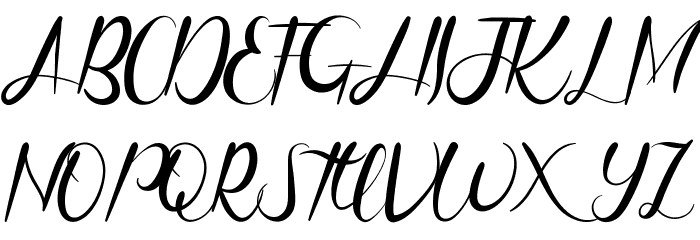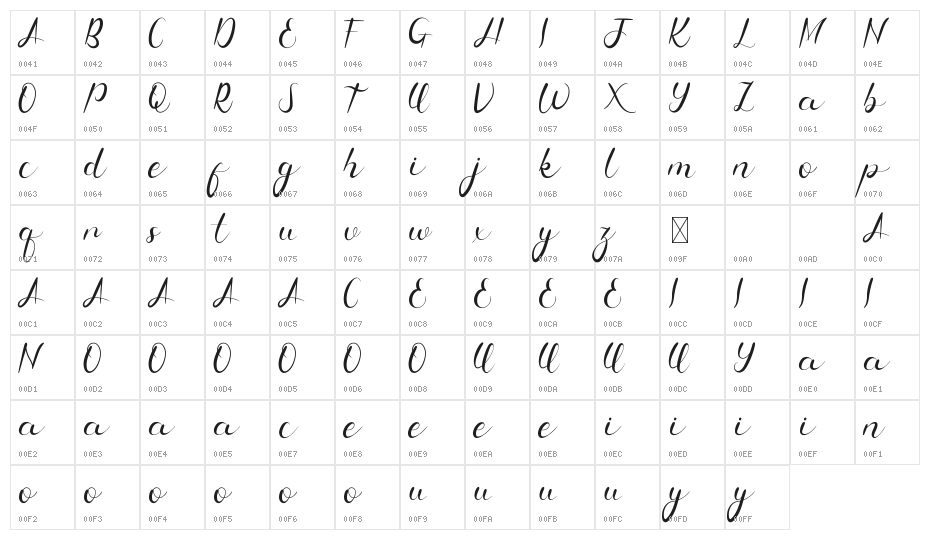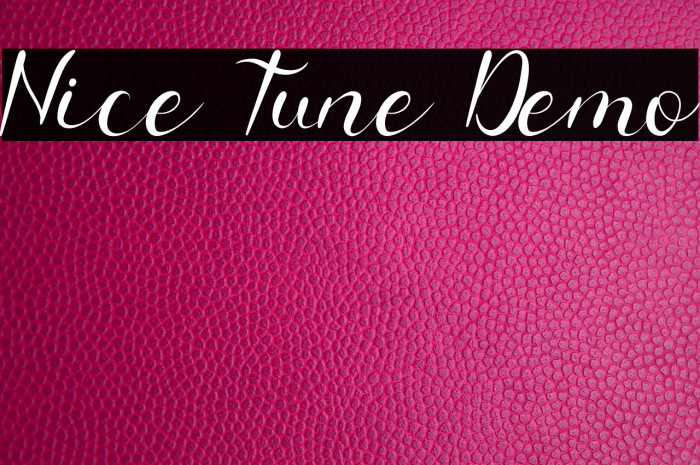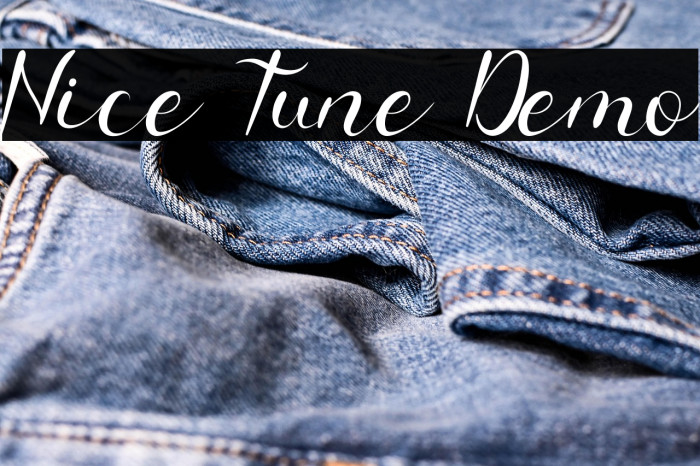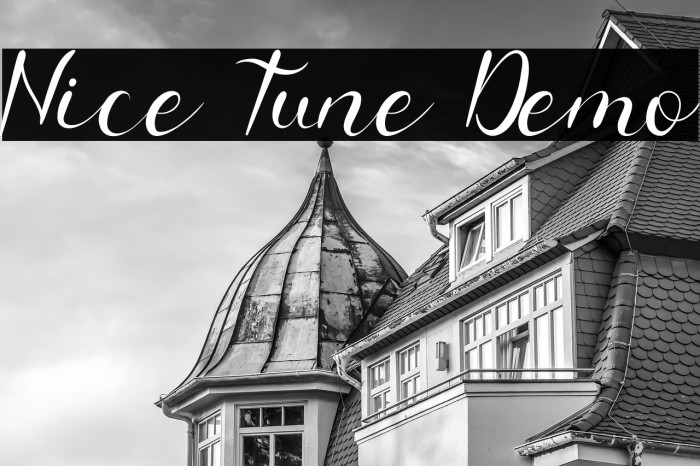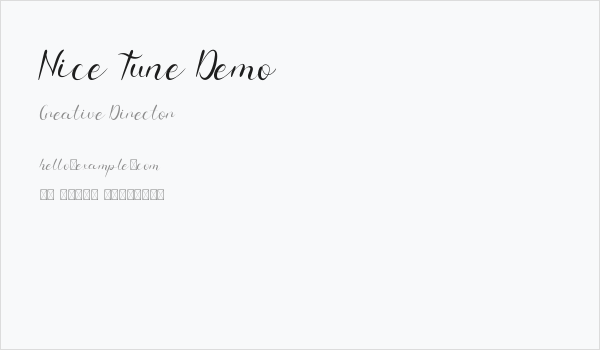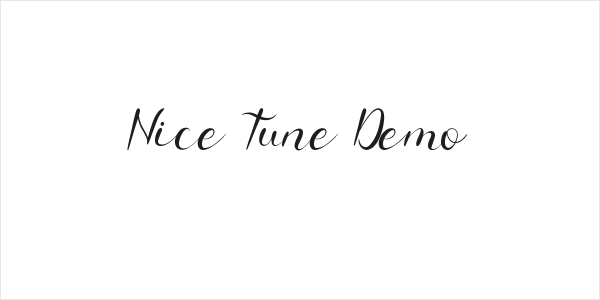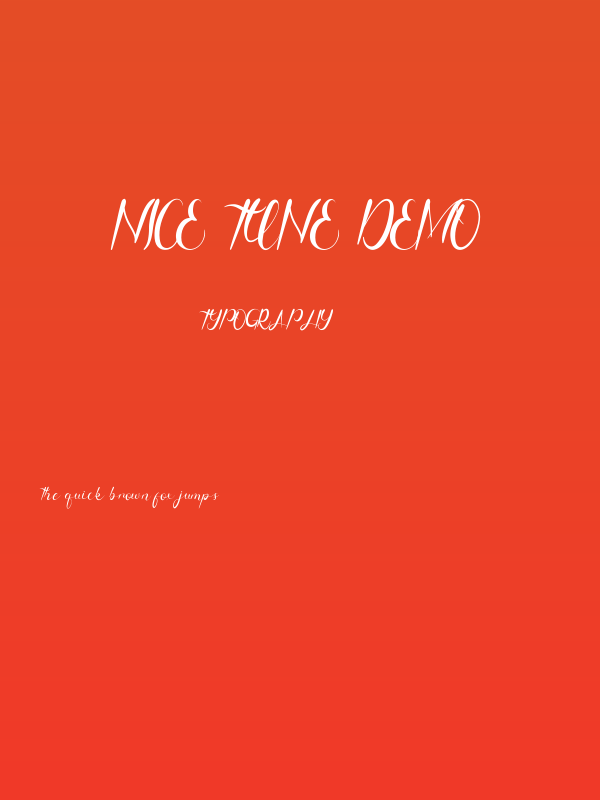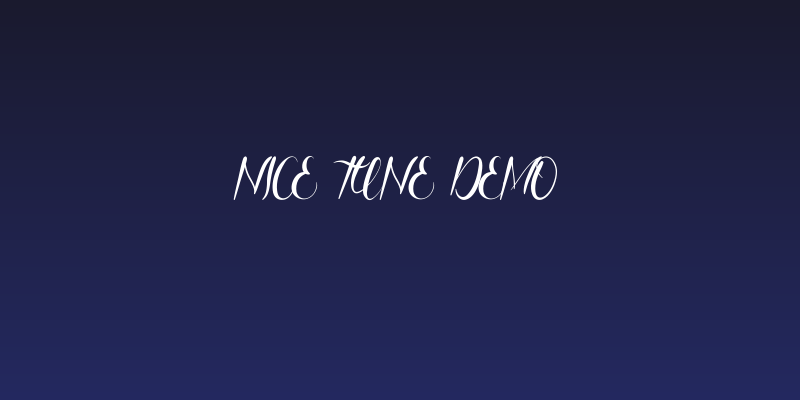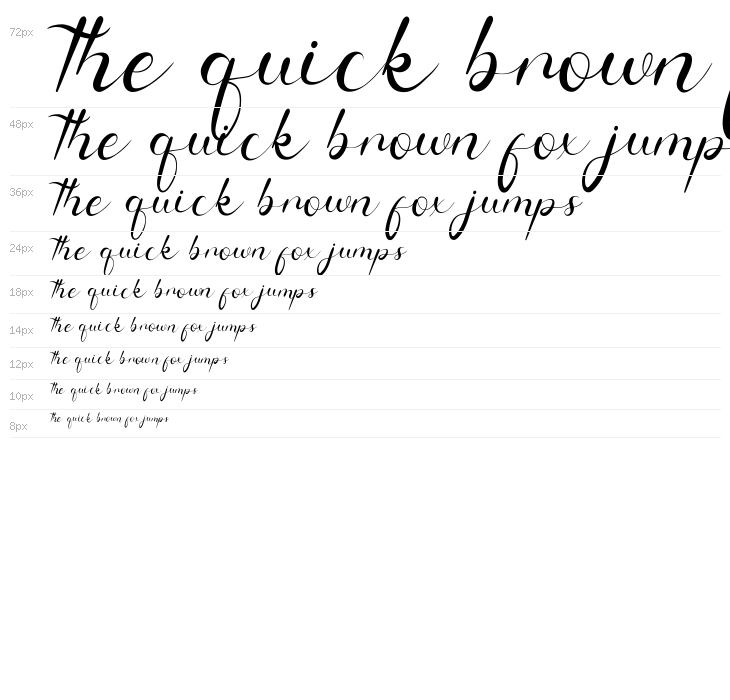
Nice Tune Demo Font
Nice Tune Demo Description
This font features an elegant and flowing script style, characterized by its smooth, cursive strokes and graceful curves. The letters are interconnected, creating a seamless and fluid appearance. The uppercase letters exhibit a sophisticated flair with extended ascenders and descenders, while the lowercase letters maintain a consistent and harmonious flow. The font's design is reminiscent of traditional calligraphy, yet it incorporates a modern twist with its clean lines and balanced proportions. The overall aesthetic is both refined and approachable, making it suitable for a variety of design applications.
| Proposed Projects | Ideal for wedding invitations, branding, greeting cards, and elegant packaging designs. |